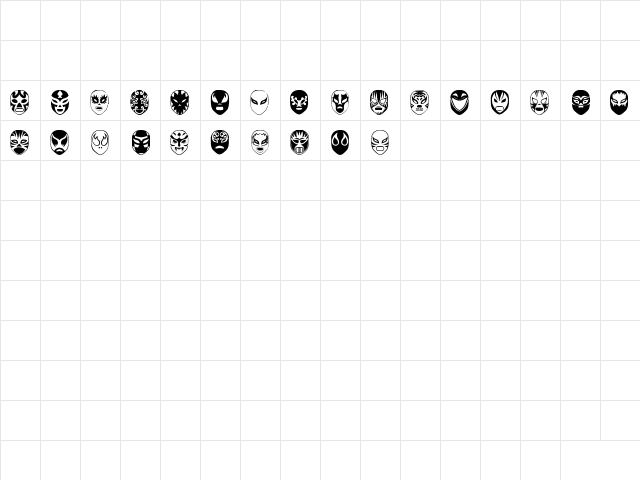
Arena Mascaras Regular
| Designer | Imagex |
Design Context for Arena Mascaras Typeface
Arena Mascaras is a composed and adaptable typeface that performs quietly and consistently across a wide range of design contexts.